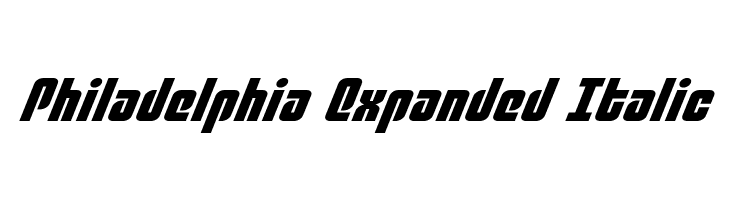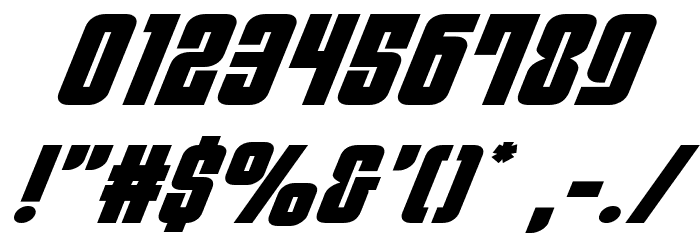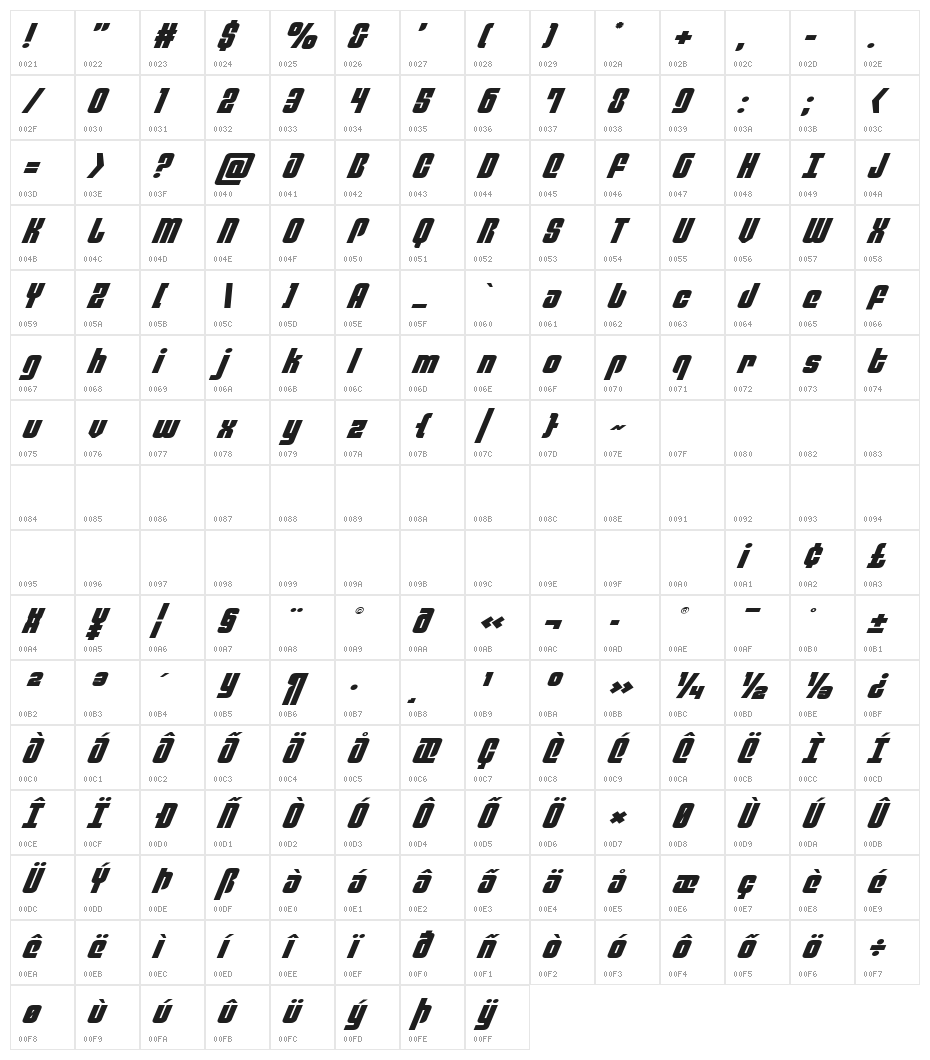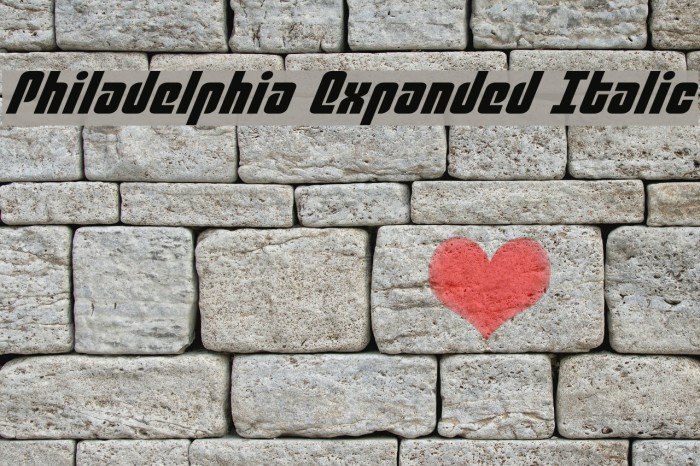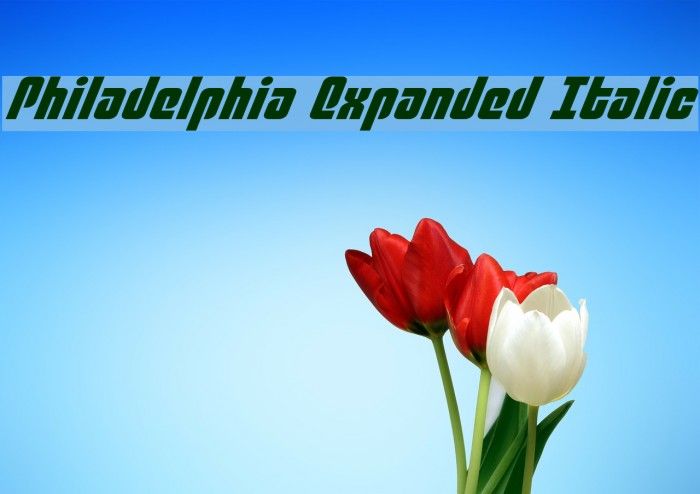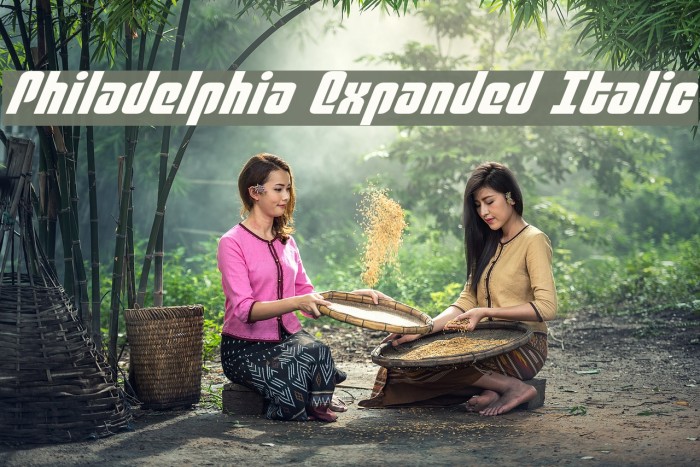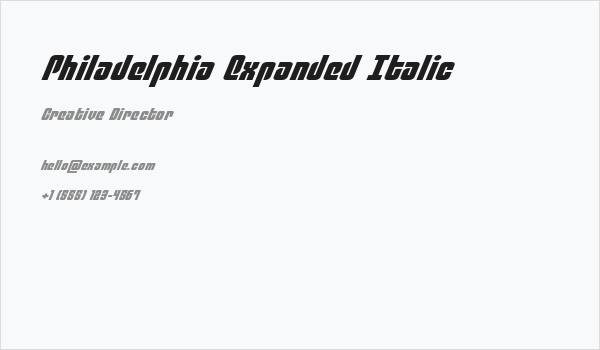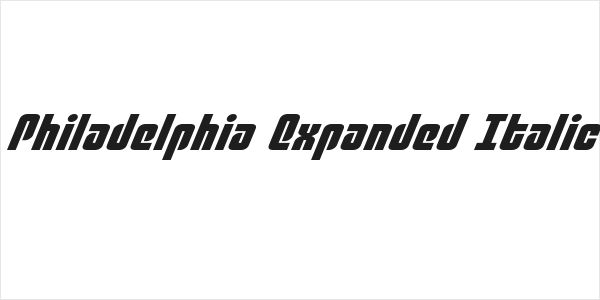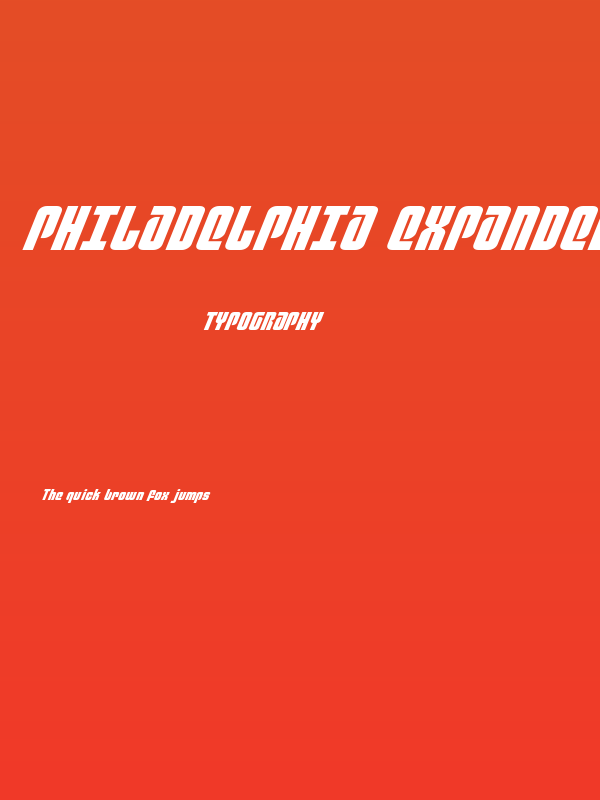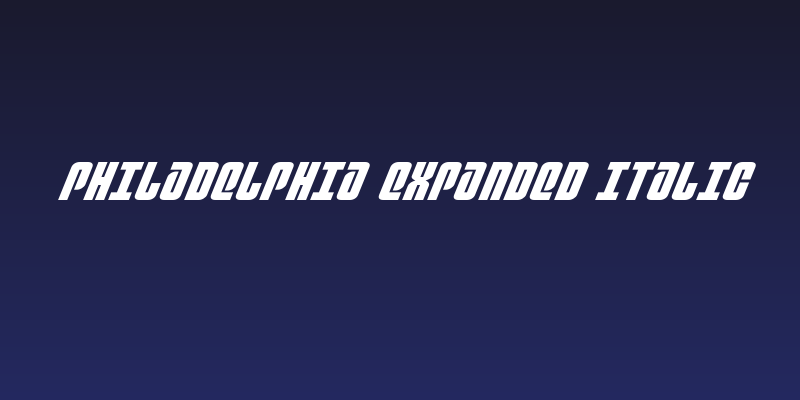
Philadelphia Expanded Italic Font
Philadelphia Expanded Italic Description
This font features a bold and dynamic style with an italic slant, giving it a sense of motion and energy. The characters are expanded, providing a wide and impactful appearance. The strokes are thick and consistent, contributing to a strong visual presence. The design is modern and sleek, with a slight futuristic touch. The uppercase and lowercase letters maintain a uniform style, while the numerals and special characters complement the overall aesthetic. This font is ideal for projects that require a bold statement and a contemporary look.
| Proposed Projects | Ideal for branding, sports team logos, posters, and headlines that require a bold and energetic appearance. |